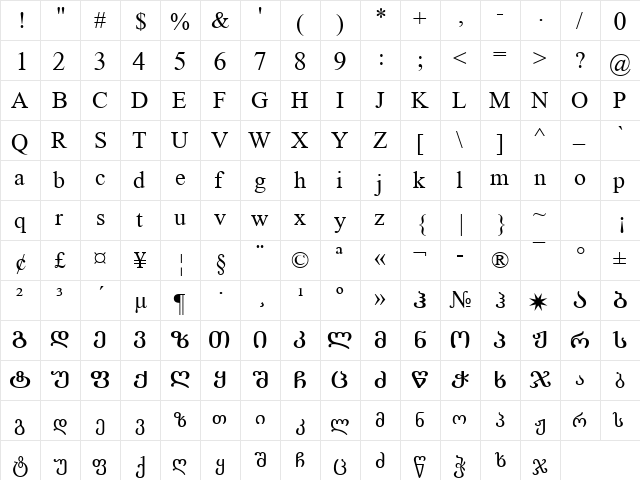
Times New Roman Georgian Regular
Design Context for Times New Roman Georgian Typeface
Times New Roman Georgian offers clean, dependable letterforms without strong stylistic allegiance, making it a practical choice for designers who need flexibility.
Pro Tip: Pair Times New Roman Georgian with a font of contrasting weight or personality to build a more expressive typographic hierarchy.